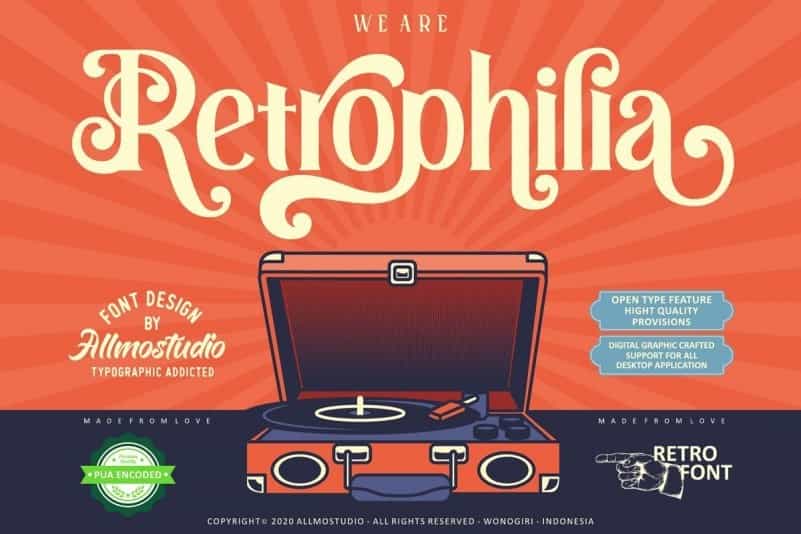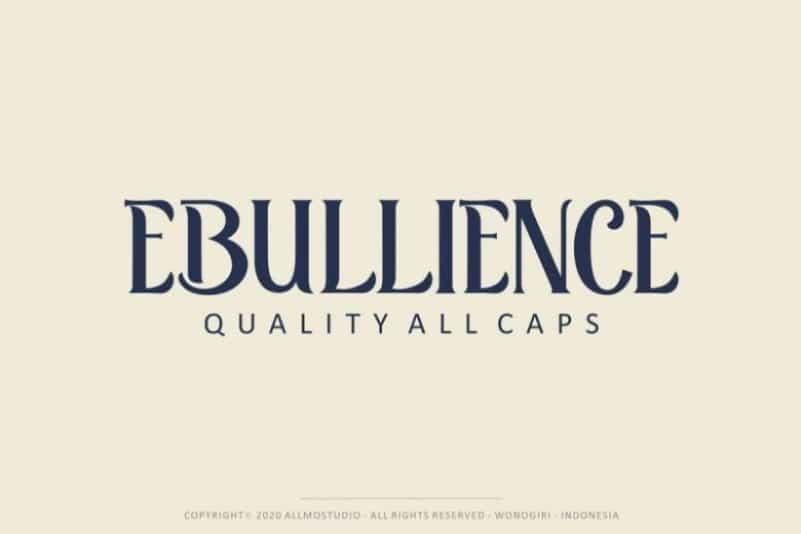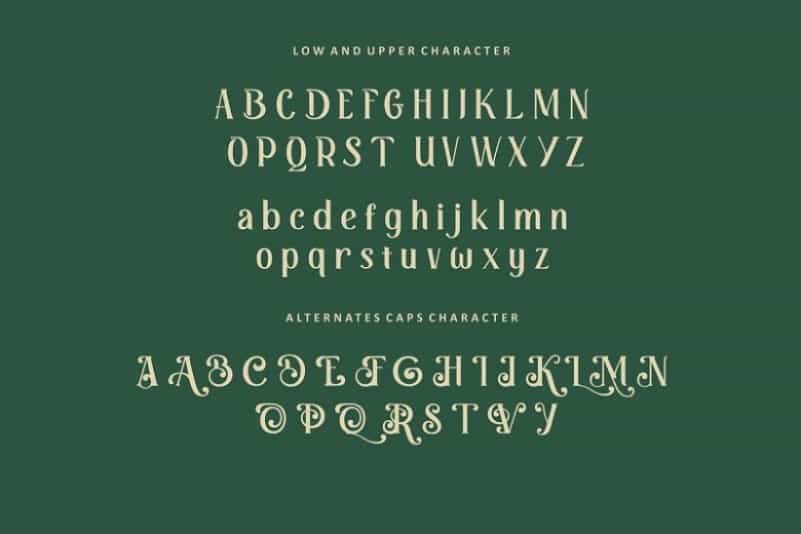
Retrophilia is elegance personified with its strong serif font that has simple characters and ligatures that make it ideal for crafting logos for individuals or organizations. undefined Suitable for logos and brand identity works, cards and invitations, stationery design, wedding themed projects, social media content creation, advertising campaigns, inspirational quotes, on print materials, product packaging, product design and labels, photography watermarks, special events promotions.